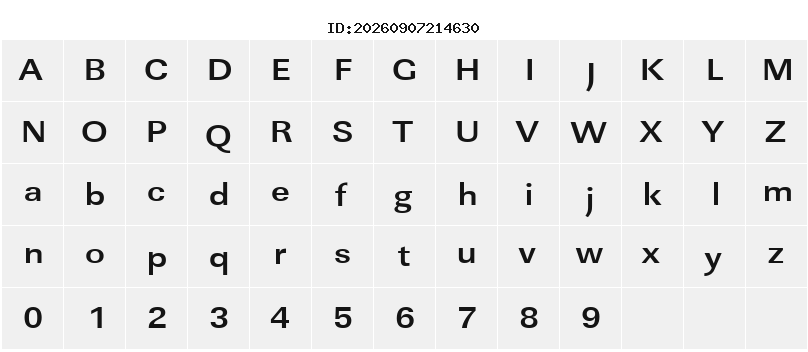
URWLinearTExtWid Preview
• Font Name: URWLinearTExtWid
• Font ID: URW:URWLinearT-BoldExtrWide:1994
• Full Font Name: URWLinearTExtWid Bold
• PostScript Name: URWLinearT-BoldExtrWide
About URWLinearTExtWid.ttf
URWLinearTExtWid.ttf is a modern, elegant sans-serif font designed for ultimate readability and visual harmony. Perfect for branding, headlines, web design, and print materials.